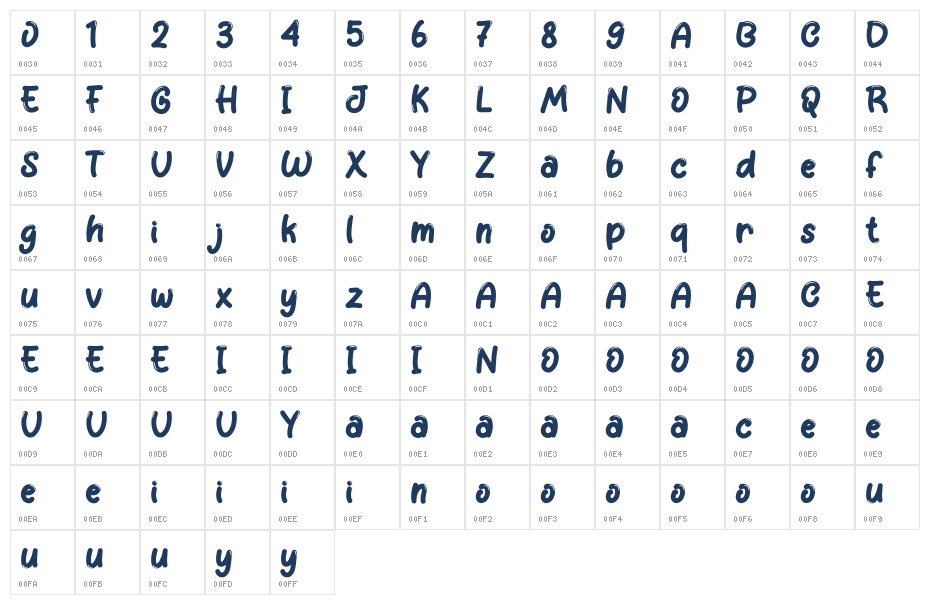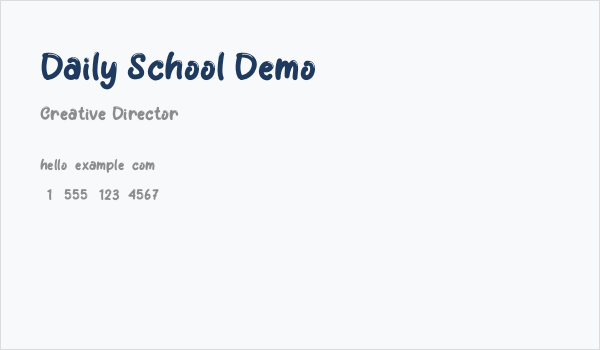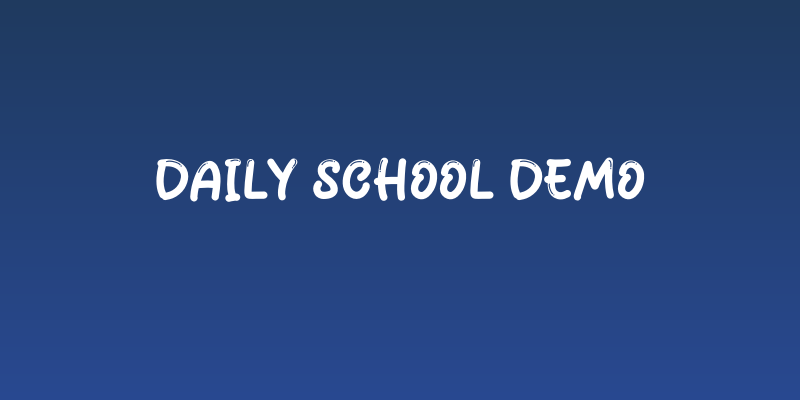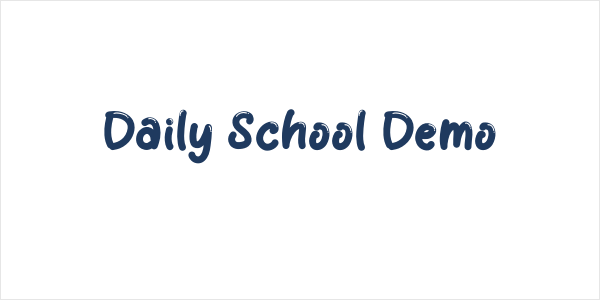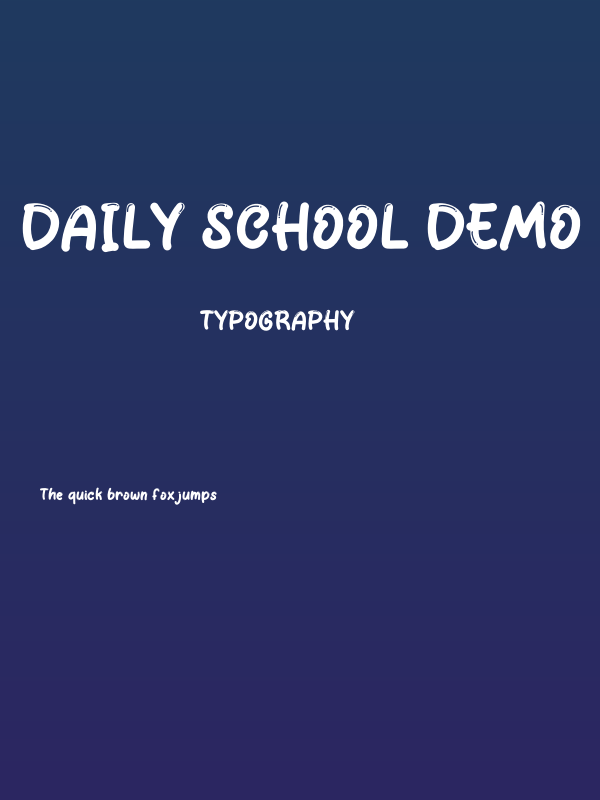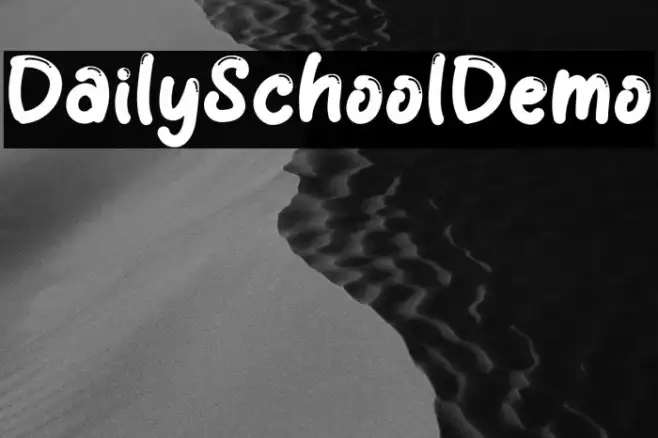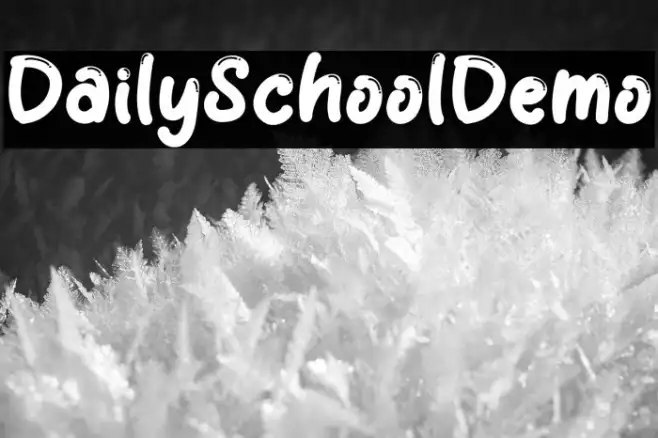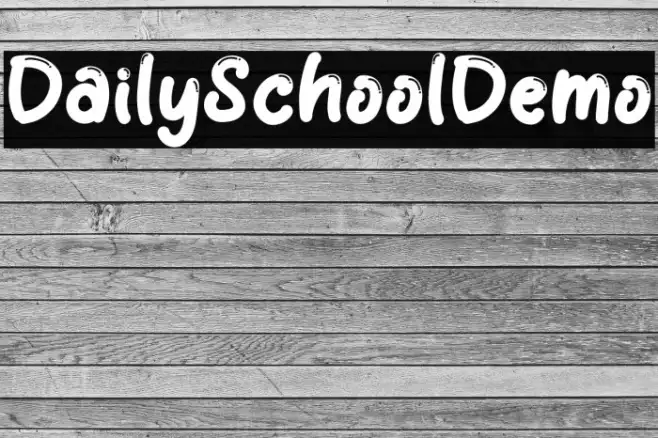
Daily School Demo Font
Daily School Demo Description
A playful, rounded, handwritten style font with a casual and friendly appearance, featuring slight irregularities and a bold weight.
| Overall Style | Casual, Playful, Friendly |
| Use Case | Headlines, Body text, Logos, Children's materials |